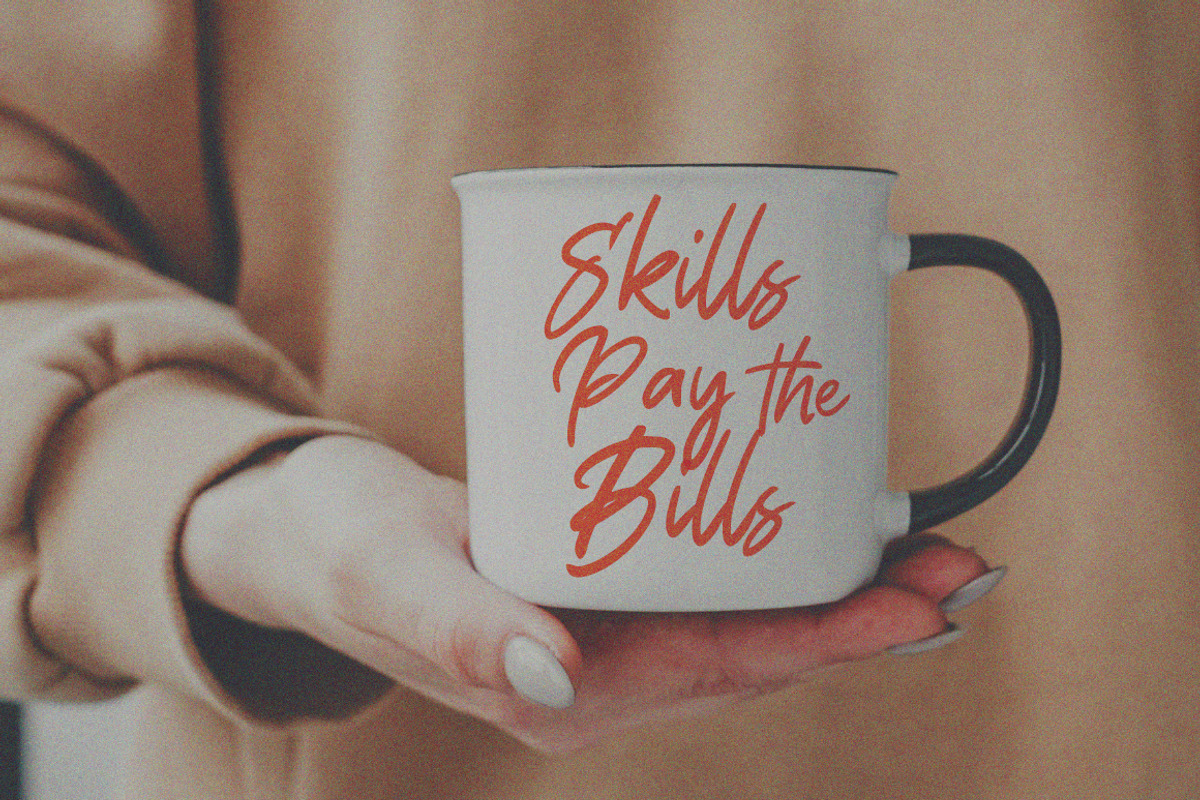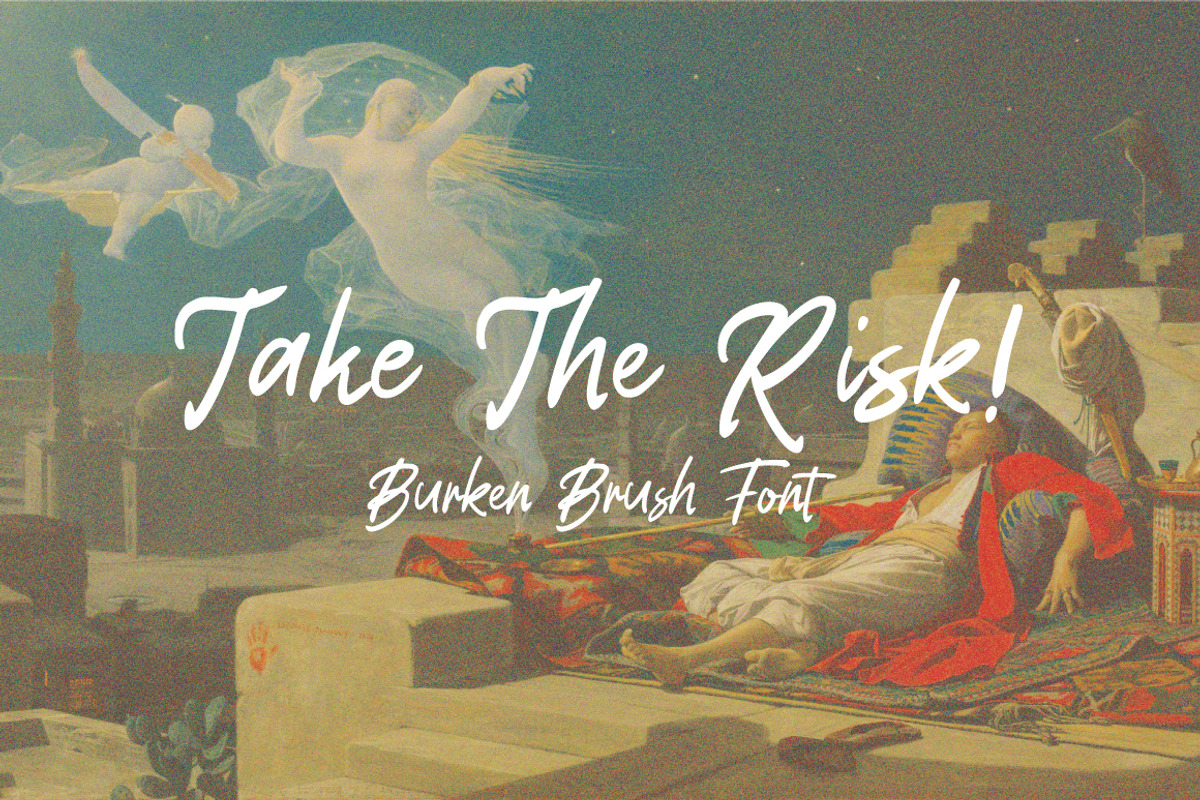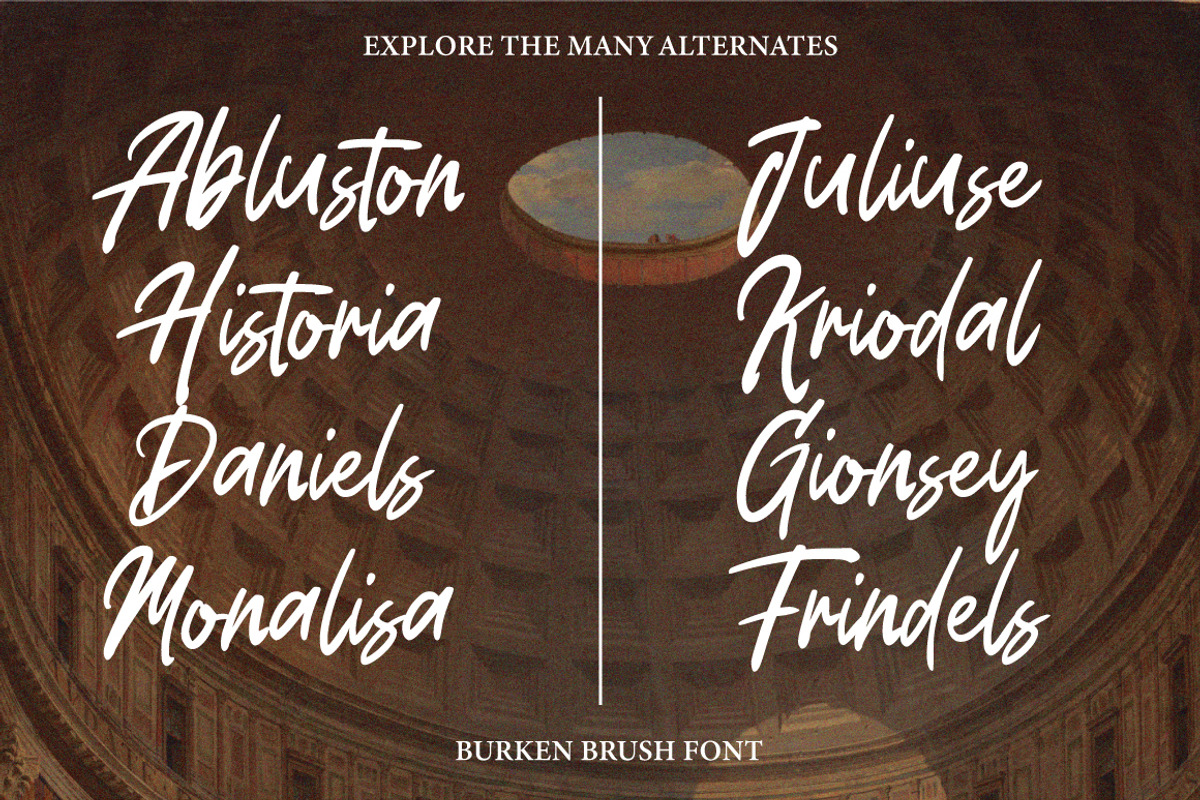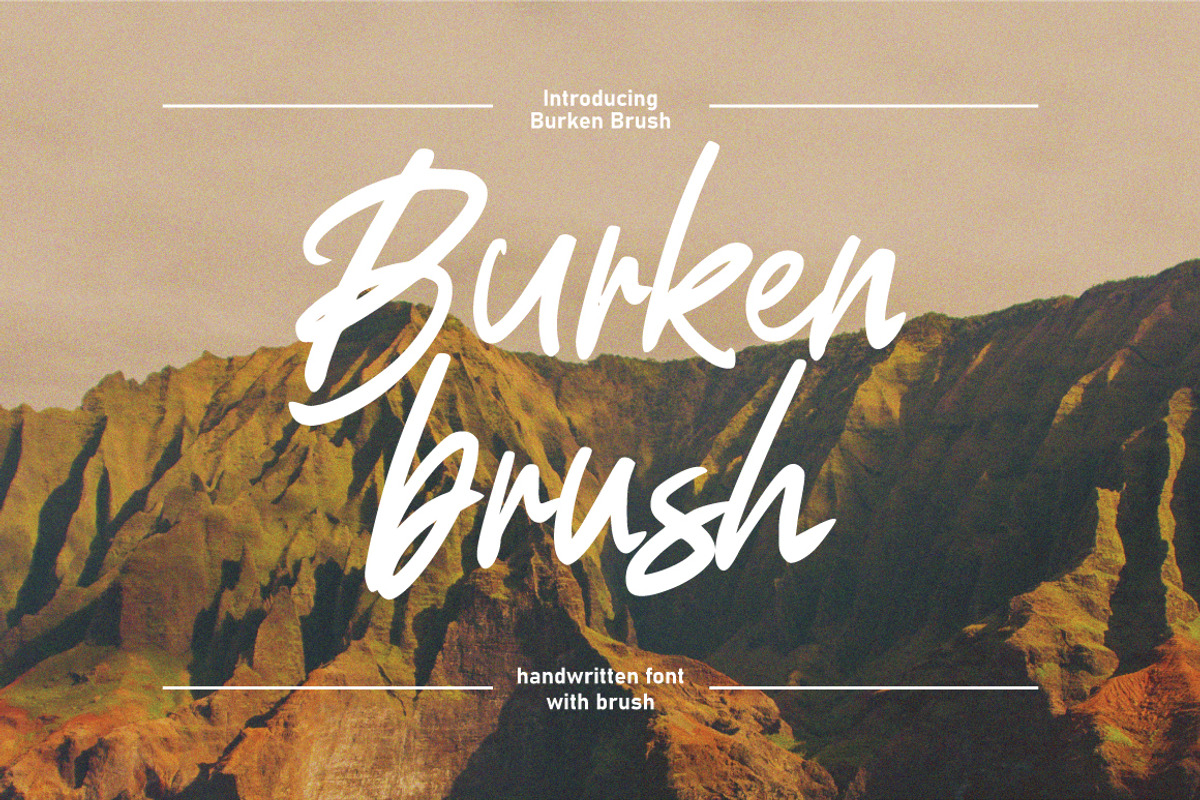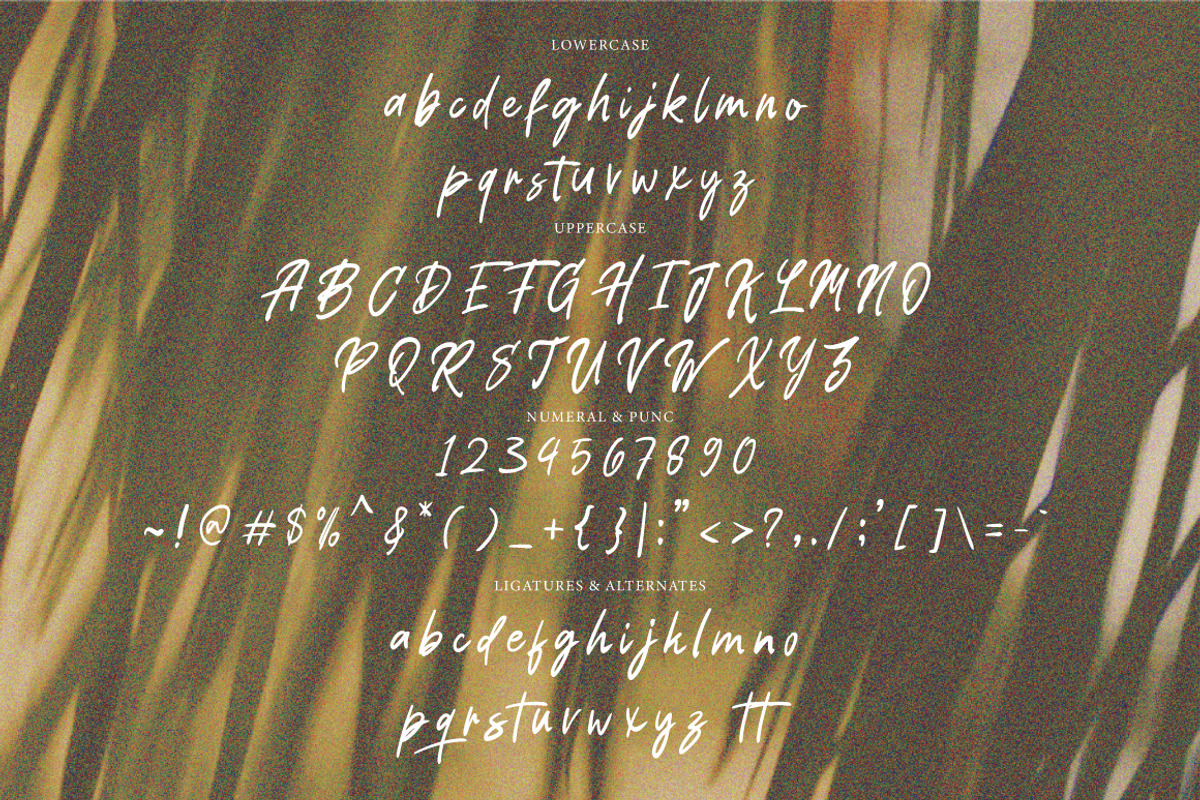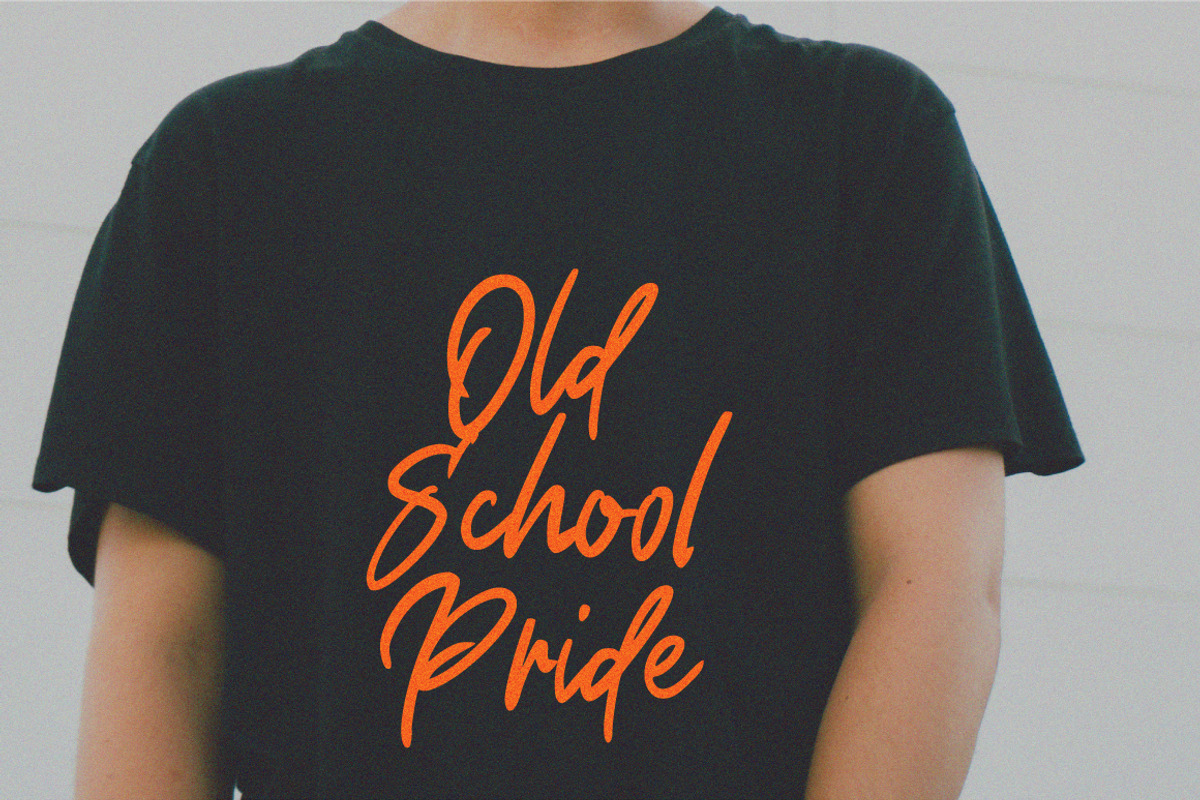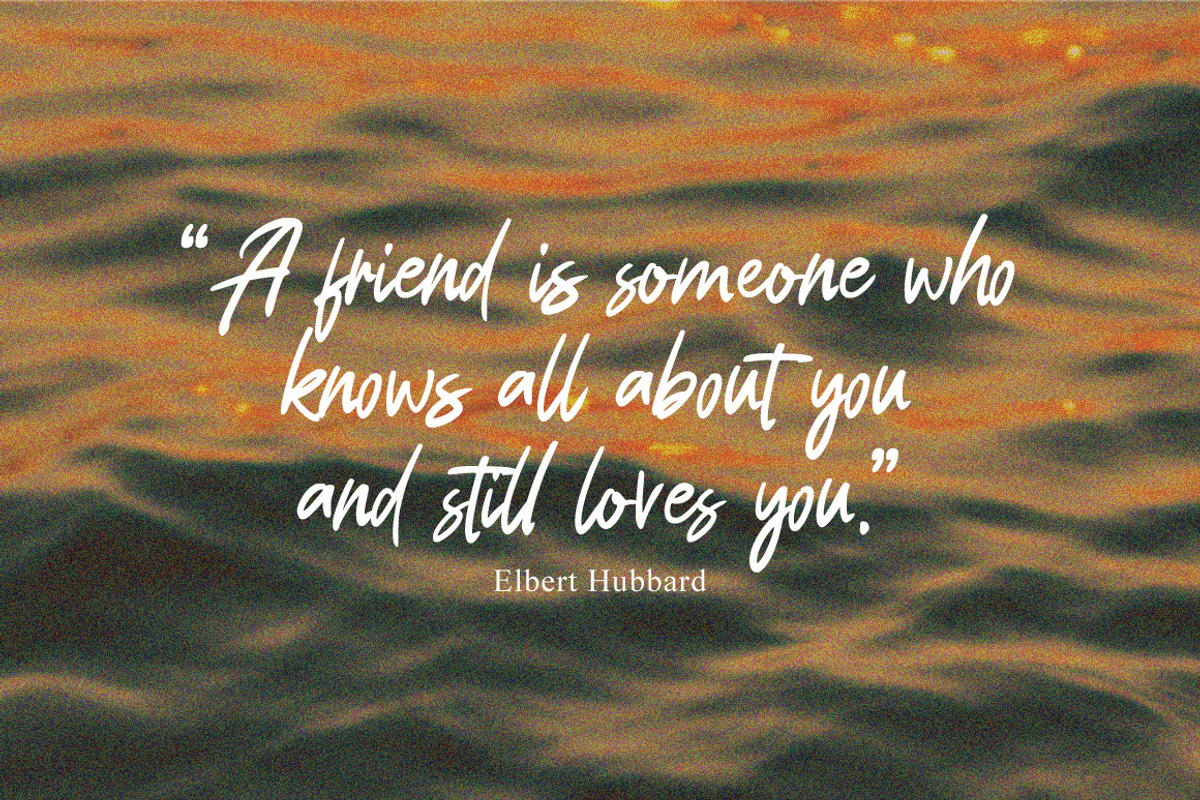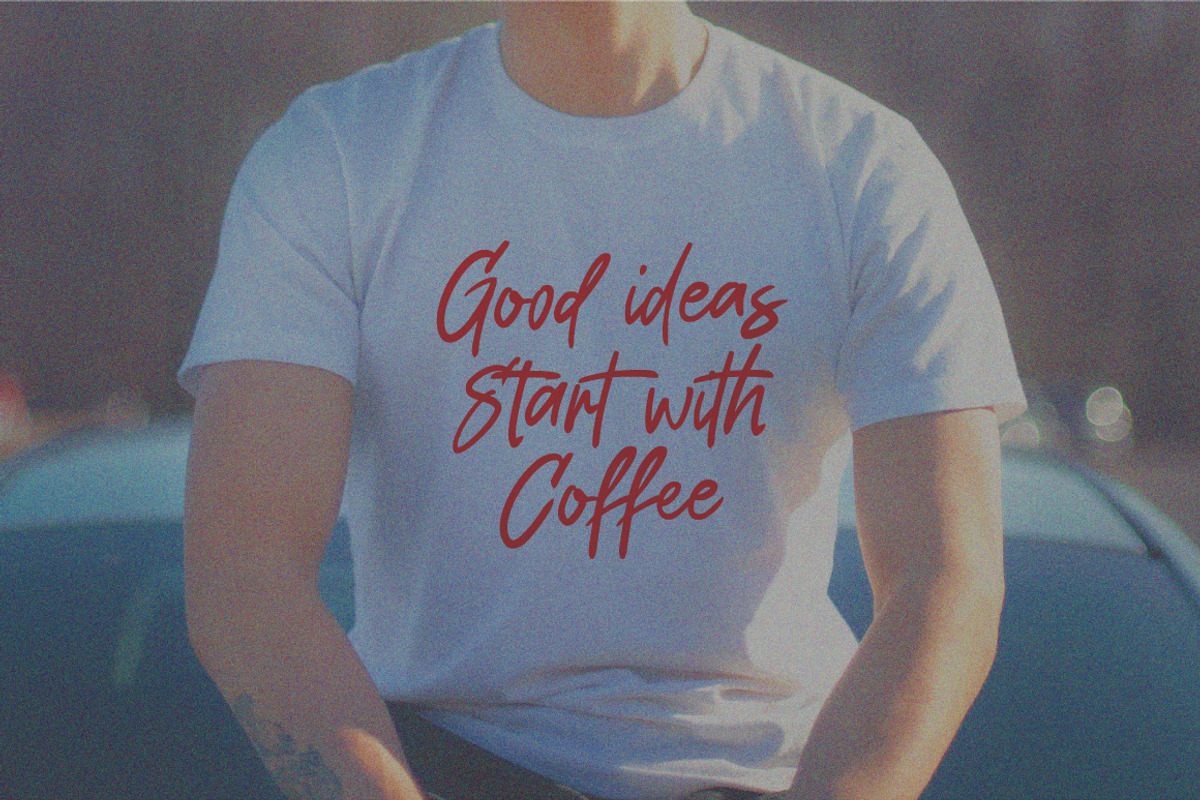
Burken - Brush Logotype
Burken Brush is a typeface with personality. You can use it as a logo, badge, insignia, packaging, headline, poster, etc The alternative characters in this font were divided into several OpenType features such as Stylistic Alternates, Stylistic Sets, and Ligature. The OpenType features can be accessed by using OpenType program such as Adobe Illustrator, Adobe Photoshop, and Adobe InDesign.